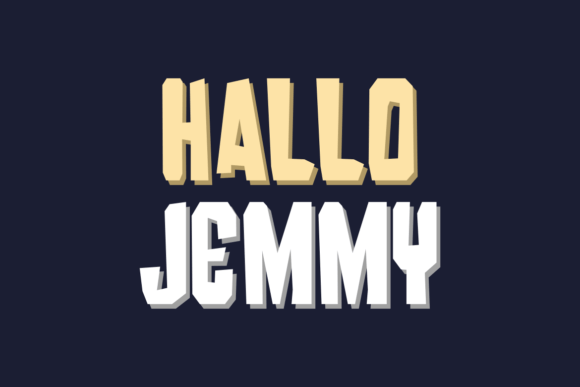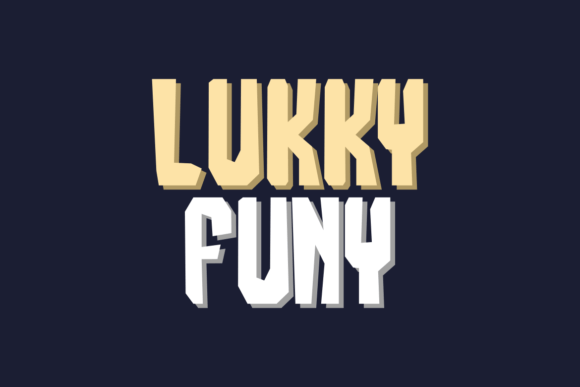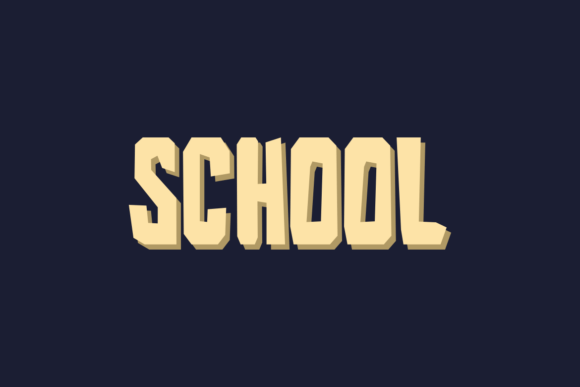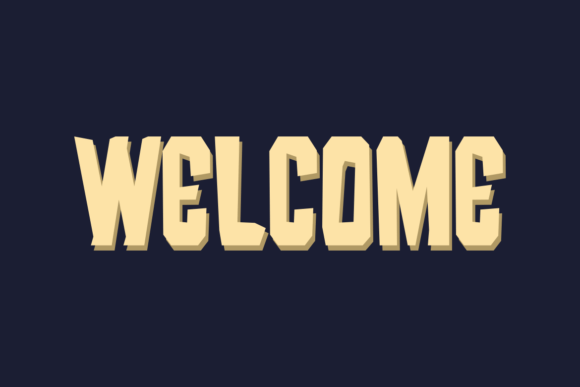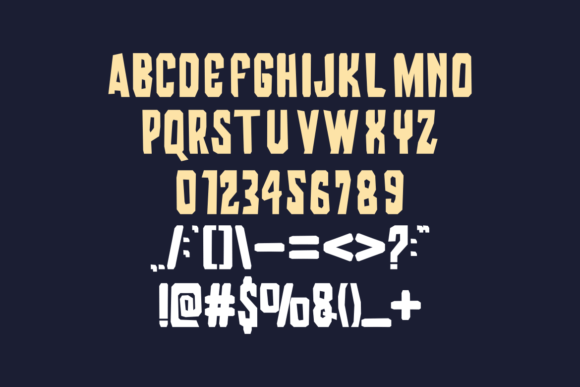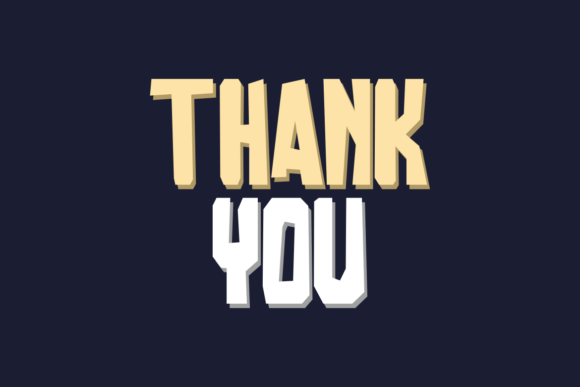
Introduction to Plondas Font
Remember the moment when you’re brainstorming ideas for a new project, and you stumble upon the perfect font to bring your vision to life? It’s that instant rush of excitement and satisfaction that makes all the difference in the creative process. For designers, finding the right font can be a game-changer. That’s exactly what the Plondas Font offers – a bold display font that’s sure to elevate your next project.
With its unique sporty characters, the Plondas Font is a high-quality design resource that’s perfect for a wide range of creative projects. Whether you’re working on a signature, stationery, or even a logo, this font is sure to make a statement. Its transparent background and versatile style make it an excellent choice for designers who want to add a touch of sophistication to their work.
Key Features of Plondas Font
- High-quality, hand-drawn design for creative projects, available for free download as a design resource.
- Comes in 6 different font styles, including regular, bold, italic, and more, with a transparent background for easy customization.
- Supports Latin, Cyrillic, and Greek languages, making it a versatile choice for multilingual creative projects.
- Features a unique, hand-crafted design with intricate details, perfect for adding a touch of elegance to your creative project.
Honest Review: Plondas Font
I recently came across the Plondas Font and was excited to dive in and see what it had to offer. As a designer, I’m always on the lookout for high-quality fonts to enhance my creative projects.
- ✨ Clean and modern aesthetic
- ✨ Highly versatile and suitable for a wide range of creative projects
- ✨ High-quality typography with clear letterforms
- ⚠️ Limited font weights and styles
- ⚠️ Not ideal for complex or large-scale typography projects
Overall, I think the Plondas Font is a solid addition to any design resource library. While it may not be perfect, its clean aesthetic and high-quality typography make it a great choice for many creative projects.
Tips for Getting the Most Out of Plondas Font
Experiment with different font sizes and styles to achieve the desired effect. Use the font in combination with other design elements to create a cohesive and visually appealing design. Take advantage of the transparent background to create a clean and minimalist look.
The Plondas Font is suitable for a variety of creative projects, including logos, business cards, and social media graphics. Its high quality and transparent background make it perfect for designs requiring a unique and creative touch.